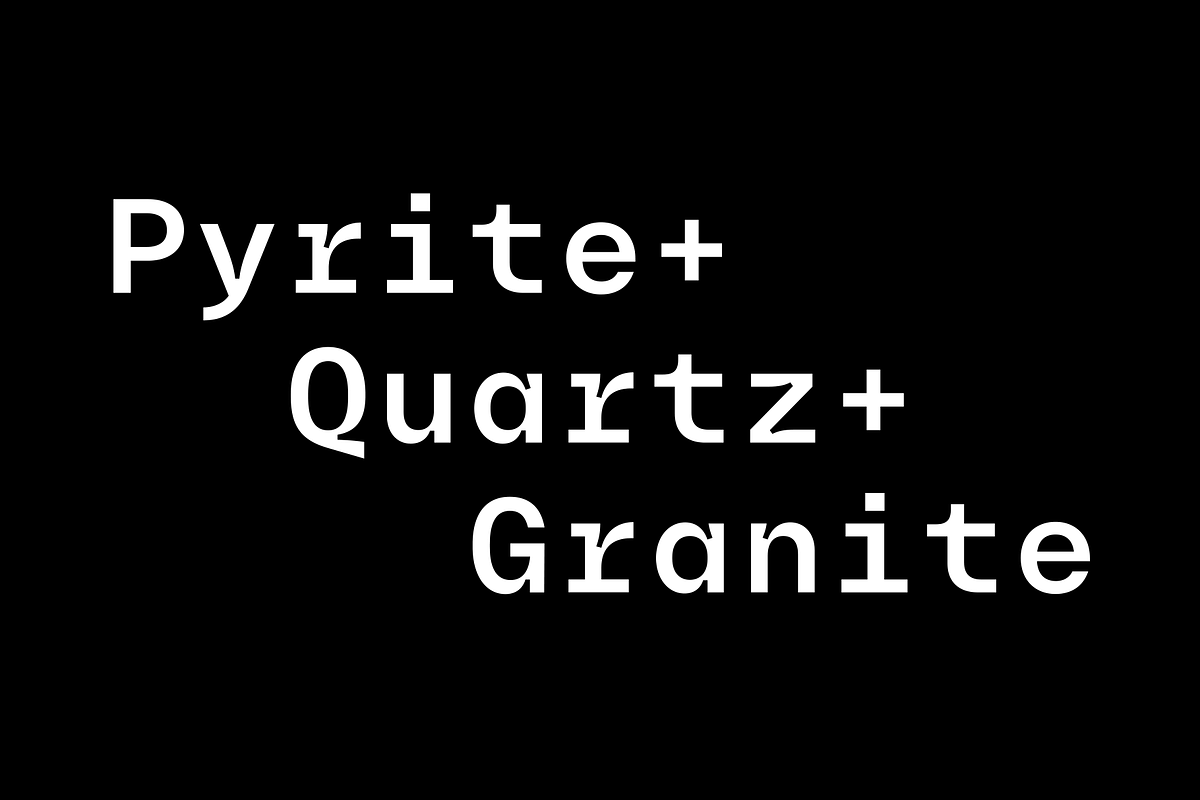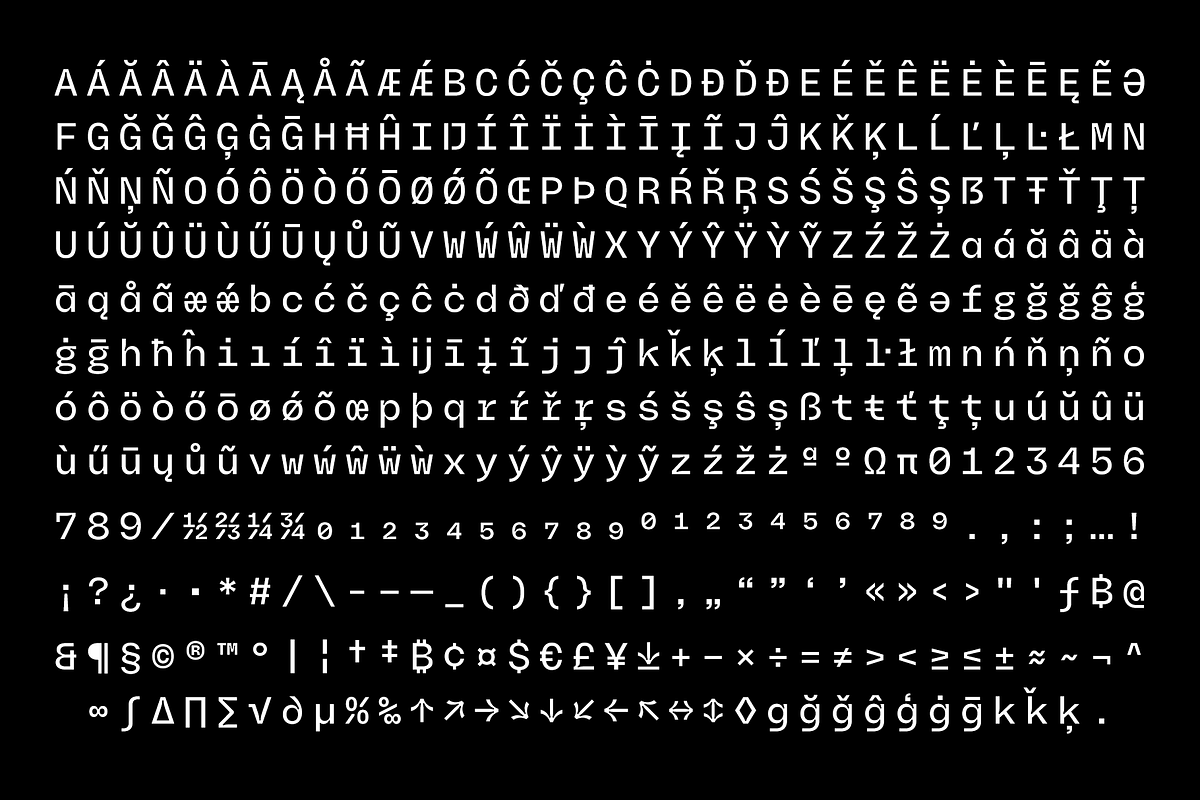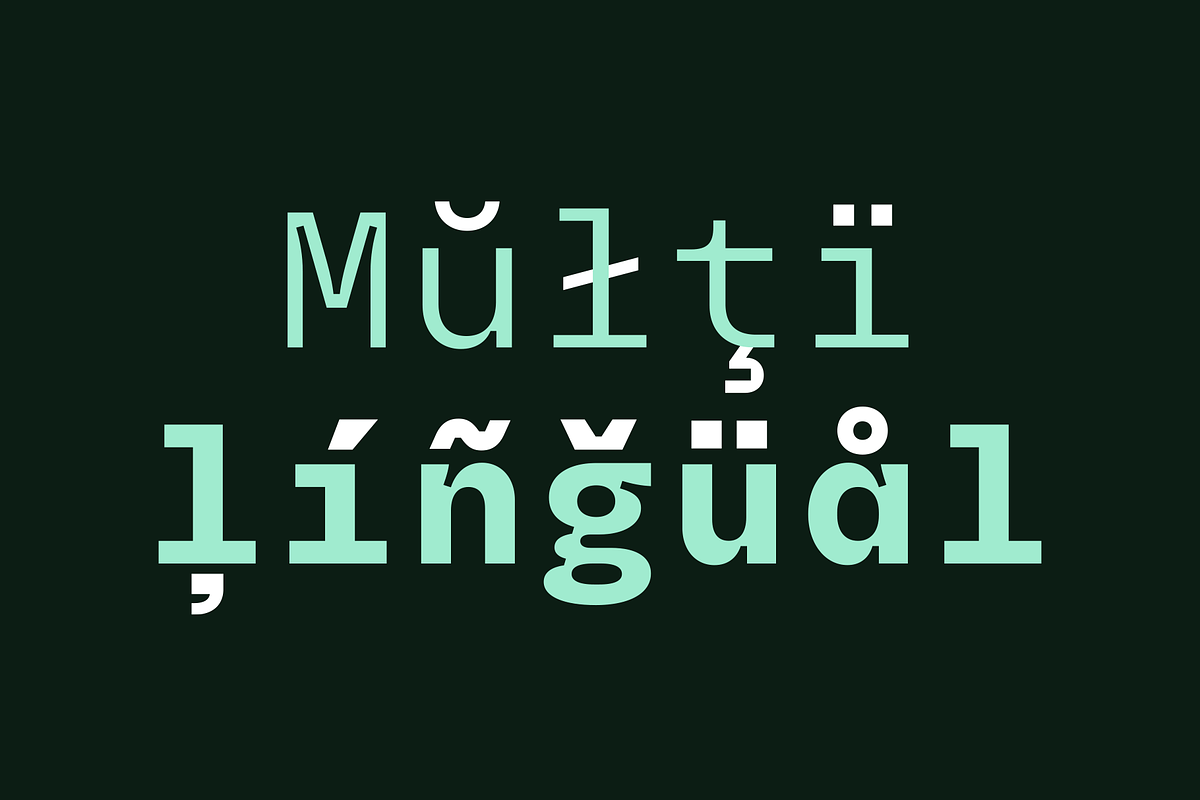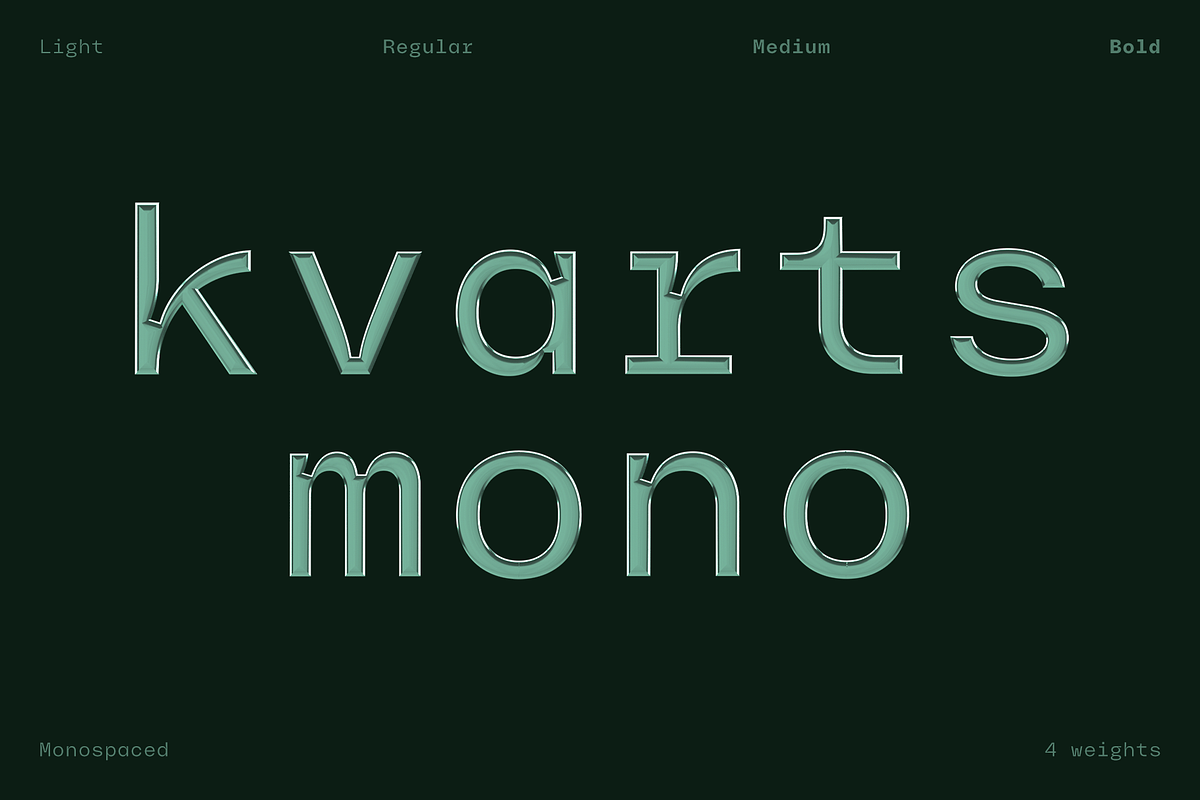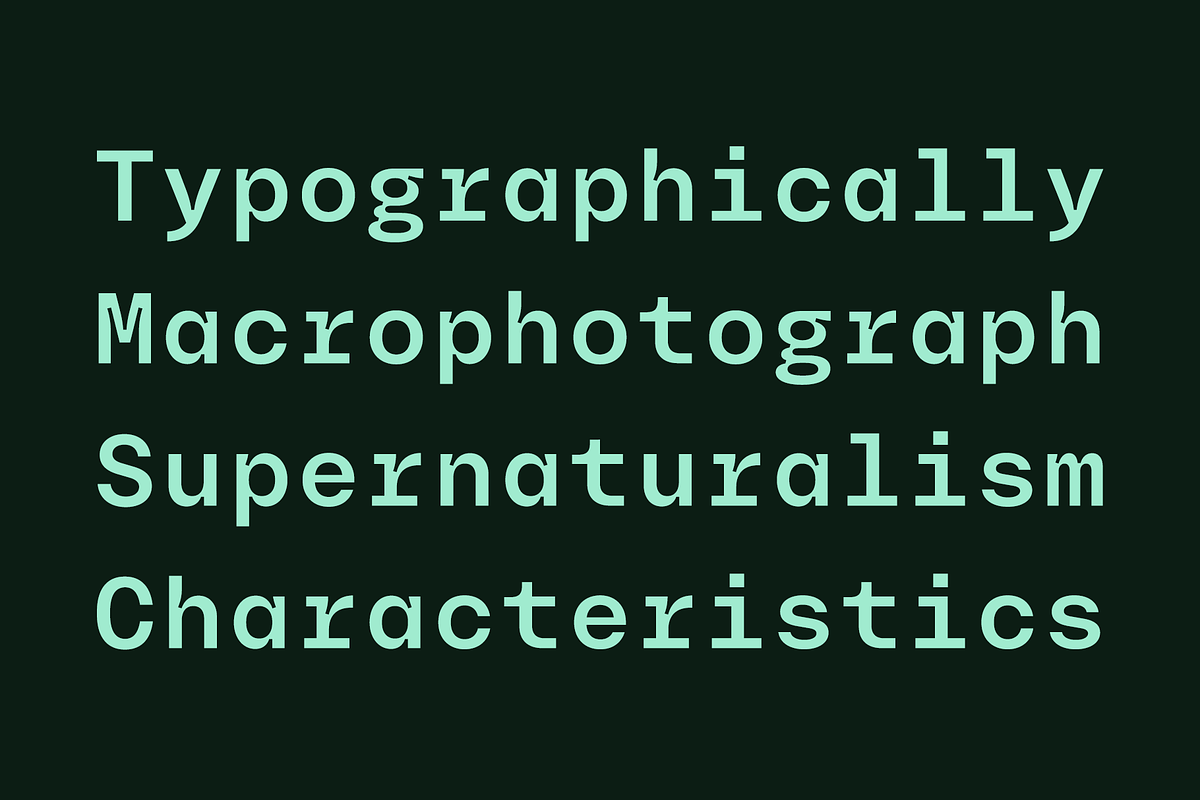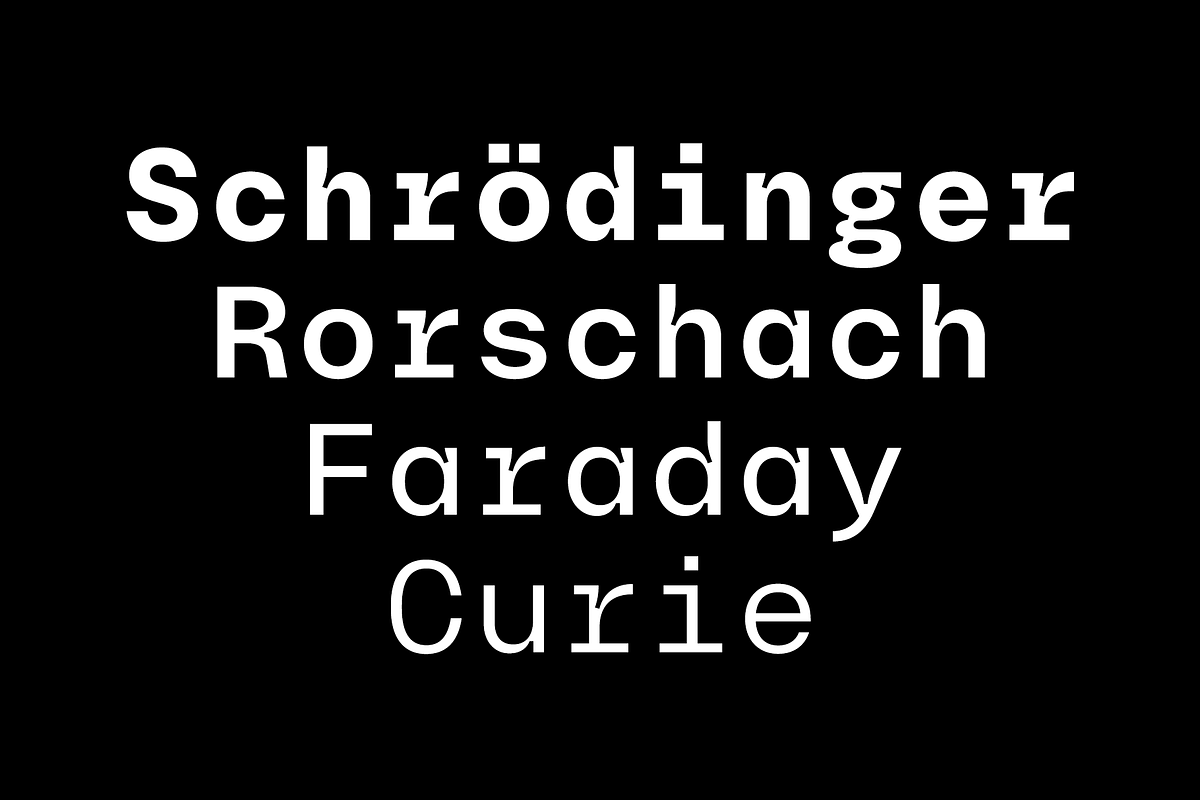
Kvarts Mono | Family with 4 widths
Kvarts (Swedish for Quartz) gets its name from the sharp mineral that helps us keep good time. Kvarts is a monospaced typeface in four weights. Monospaced typefaces have some oddities in their DNA by nature, having letters of different shapes trying to fill up the same space, and Kvarts leans into those quirks.